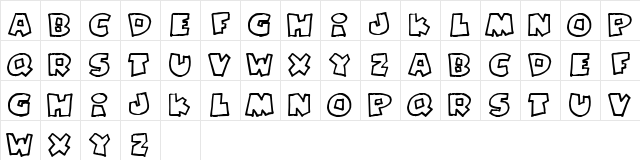
PizzaDudeFatOutline Regular Font Preview
PizzaDudeFatOutline Regular
PizzaDudeFatOutline Regular Font Details
Design Context for PizzaDudeFatOutline Typeface
PizzaDudeFatOutline brings ornamental detail and strong personality to headlines and identities, where visual impact matters more than quiet functionality.
Font Pairing: Pair with a clean neutral sans-serif for body copy to let PizzaDudeFatOutline's character lead without overwhelming the composition.
Pro Tip: Treat PizzaDudeFatOutline as the centrepiece of your typographic hierarchy. One strong heading set in a decorative face can carry an entire layout.